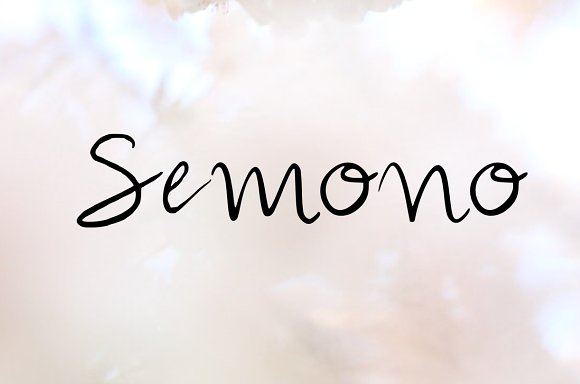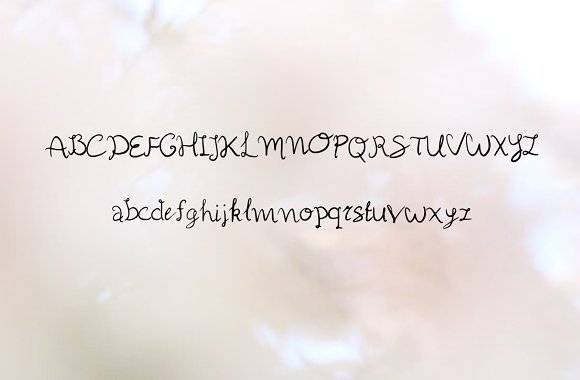
Semono Handwritten Script Font
Semono is a handwritten font. Ideal for logos, handwritten quotes, product packaging, header, poster, merchandise, social media and greeting cards